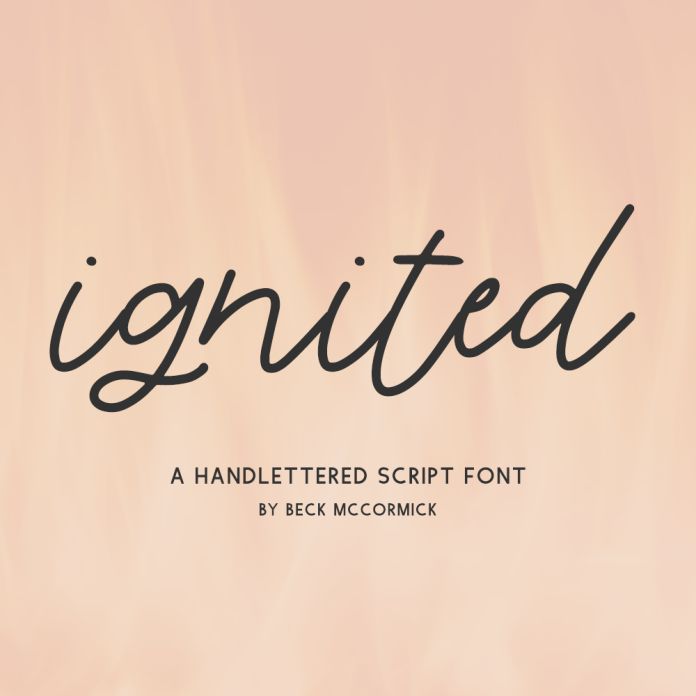
Introducing Ignited, a cute monoline calligraphy font.
Ignited is best for:
- feminine, crafty projects with your Cricut or Silhouette machine, or your SVG design business
- 3 ligatures - go, jo, sk